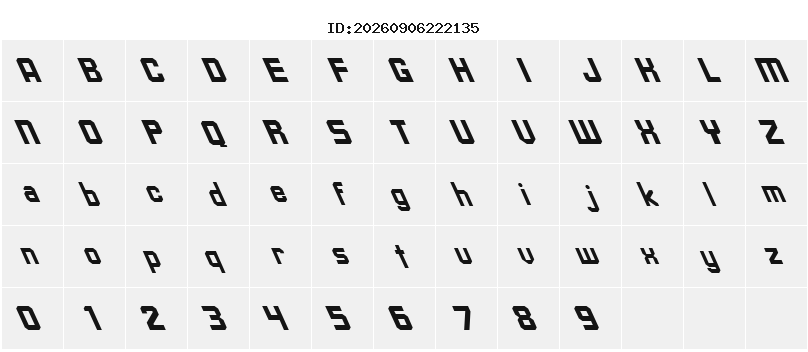
• Font Name: Upsilon Extreme Lefti
• Full Font Name: Upsilon Extreme Lefti
About Upsilon Extreme Lefti.ttf
Upsilon Extreme Lefti.ttf is a modern, elegant sans-serif font designed for ultimate readability and visual harmony. Perfect for branding, headlines, web design, and print materials.